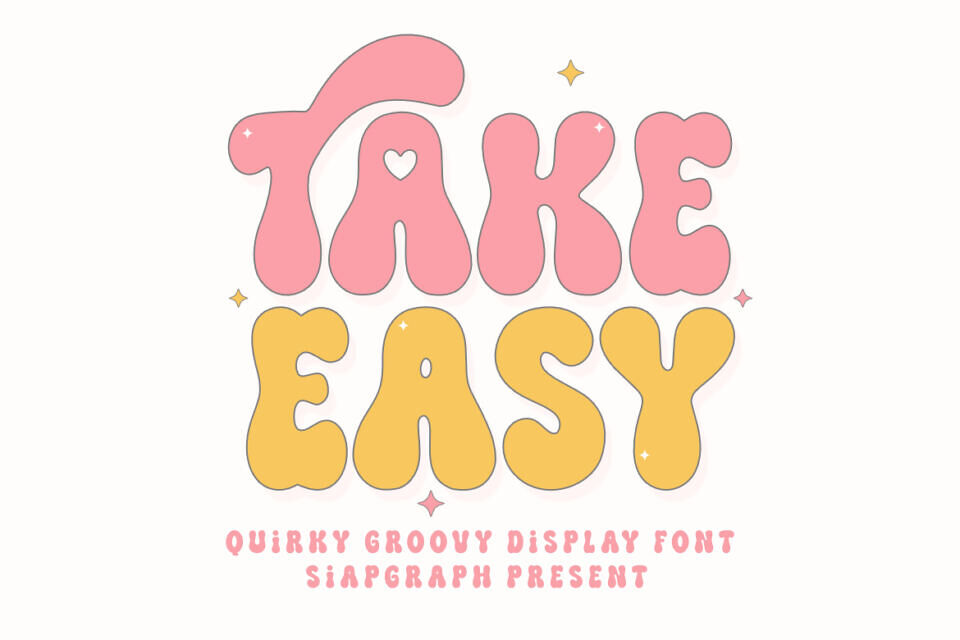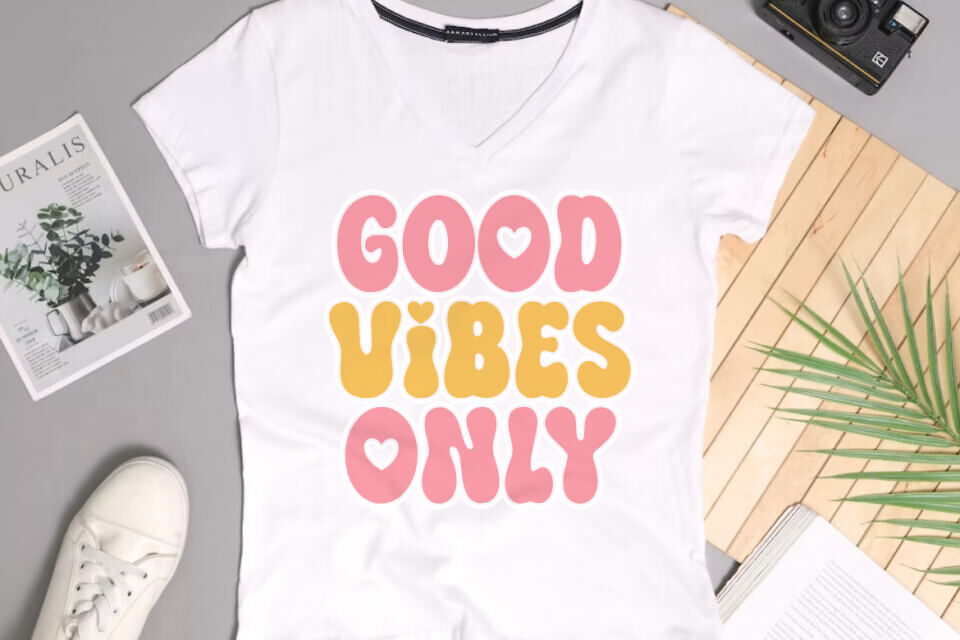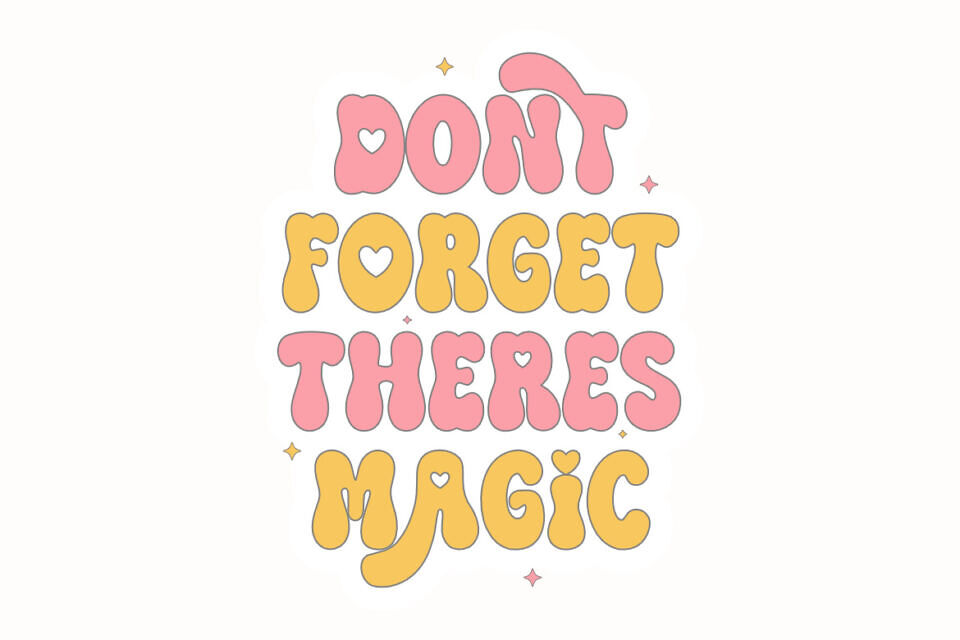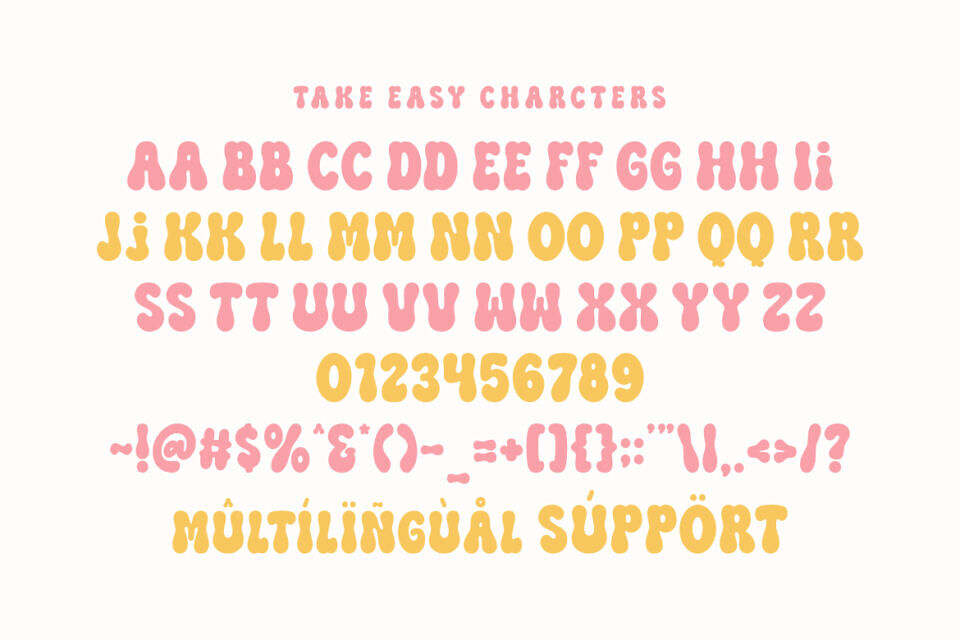
Take Easy Font
Take Easy is a quirky groovy display font that captures the laid-back, joyful vibes of retro design with a modern, affectionate twist. Featuring bold, wavy letterforms and a charming heart accent integrated into the character design, this typeface brings an optimistic and playful personality to any creative project.
Its clean and substantial construction is specifically optimized for the crafting community, ensuring a seamless and frustration-free experience for vinyl cutting, sublimation, and high-quality digital printing. Great for holiday themes such as Birthdays, Summer Break, Valentine’s Day, and “Good Vibes” themed events, adding a relaxed, happy, and groovy spirit to all your seasonal designs!